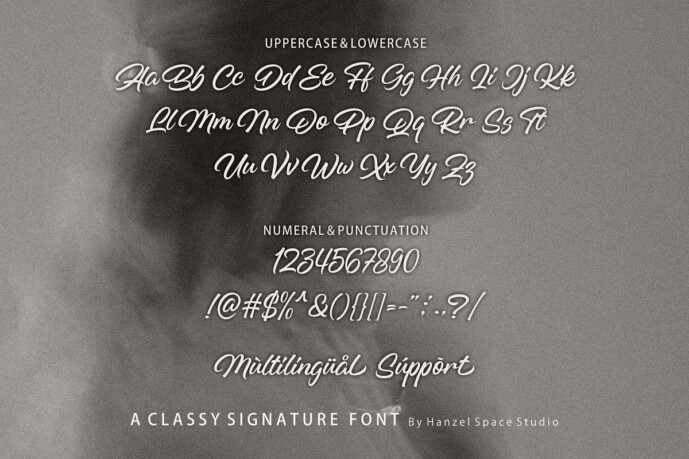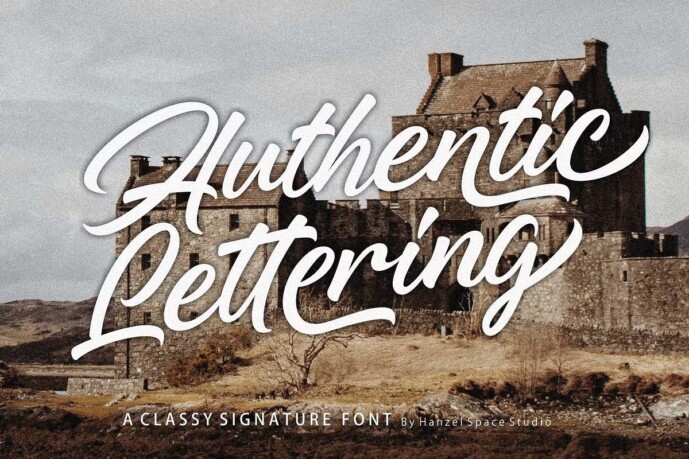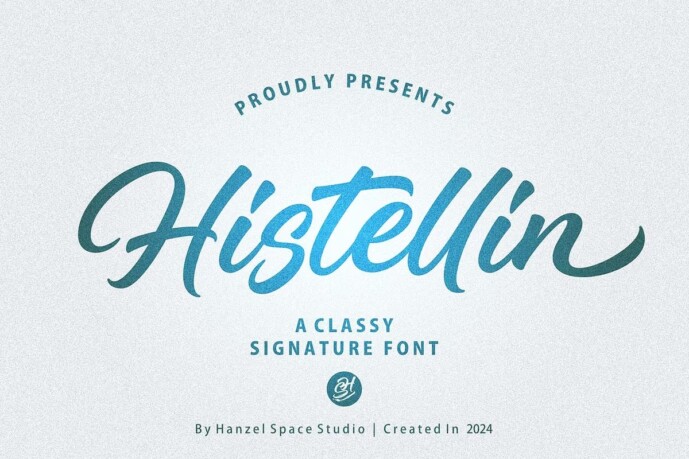
Histellin Font
Histellin Font in a modern classic style, with characteristic curves so that each letter has its own character. With this font product, you can easily apply it to each of your design works.
This font was created to help you designing logotype or lettering style logo for your Brand or your clients, and you also can use it for designing all of the graphic stuff such as badge, sign, packaging, headline, title, T-shirt/apparel,bPoster, etc.